10 Fresh Font Pairings for Editorial Design in 2020
Whether you’re creating a poster, a brochure, a website or any other kind of design that includes text, the importance of typography cannot be underestimated. Getting your type right is crucial to readability, hierarchy, engagement, navigation and overall user experience, to name but a few things. And one of the most important factors in all that is choosing fonts that complement each other well, both aesthetically and functionally.
With millions of potential font combinations open to you, though, it can be difficult to know where to begin. So in this article, we get you started by providing you with 10 font pairings that we’d recommend giving a try.
Some of these may not be the most obvious font combinations, but they all work together beautifully and are potentially suitable for a wide range of design purposes.
1. Elena and Maple
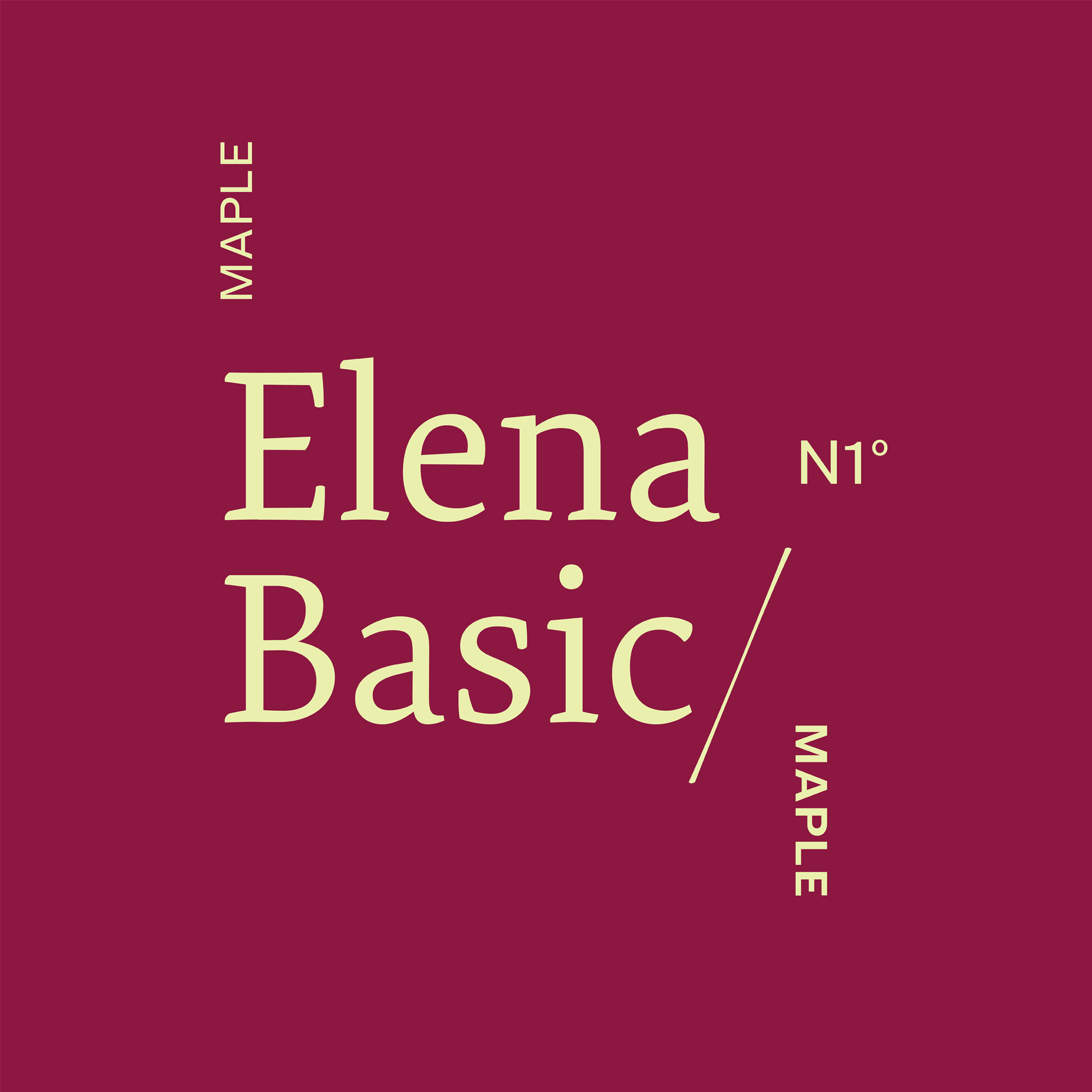
Elena is a lovely font designed specifically for digital text. A clear, crisp and modern-looking serif, it was designed by Nicole Dotin and released through Process Type Foundry in 2011.
Another dependable and hard-working typeface, Maple is a sans-serif grotesque with exaggerated lowercase incisions, irregular stroke terminations, and an overflowing black weight. Designed by Eric Olson of Process Type Foundry, this flamboyant and versatile font is brimming with personality.
The fun and flighty Maple is a great foil for the more functional and geometric Elena, and this pairing would be a great choice for any desktop or mobile app.
2. ARS Maquette and Copernicus Book
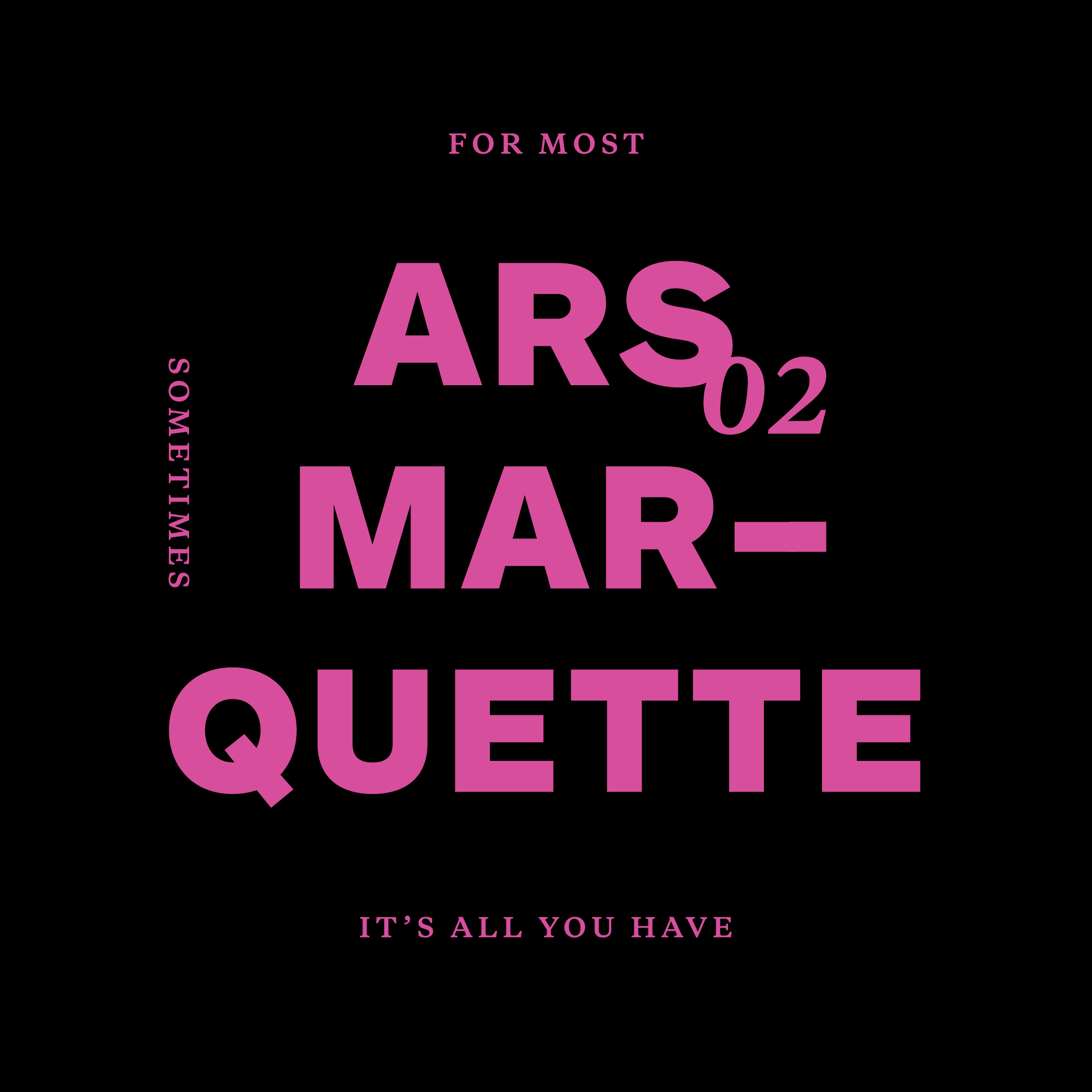
ARS Maquette is a sans-serif that offers a clean and stylish simplicity. Designed by Angus R. Shamal and released through ARS Type in 2001, its pleasing geometrics are both super-friendly and supremely readable.
Copernicus Book is a much more traditional serif that exudes authority and a sense of formality, yet still with friendly and approachable letter-shapes. Designed by Village Type & Design in 2009, it’s a good option for body copy.
You won’t be surprised that we recommend this font combination for websites that feature a lot of textual information. After all, we’re using it right here on this very site!
3. SuisseWorks and Aperçu
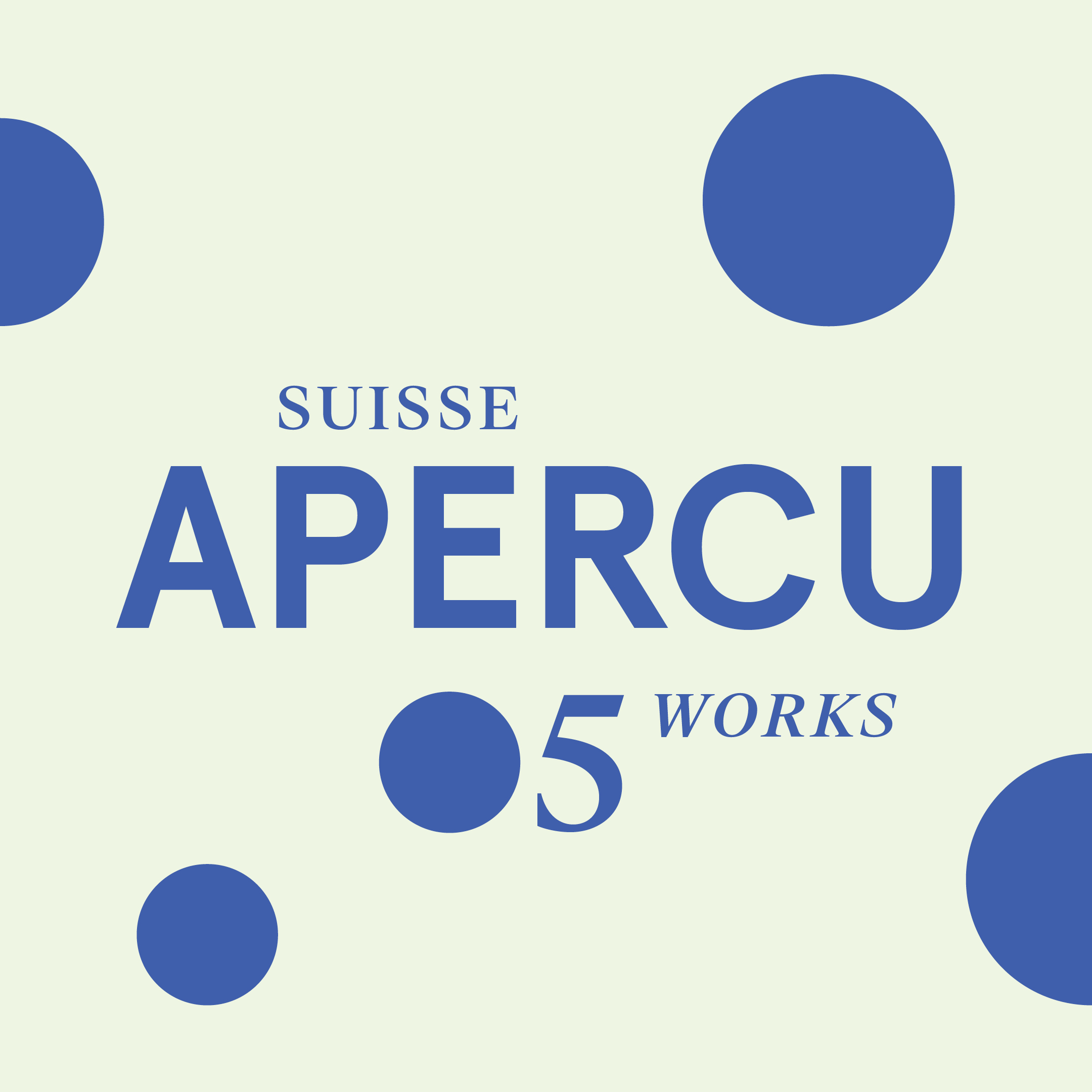
Suisse Works is a traditional serif that’s somewhat reminiscent of Times New Roman. Designed by Ian Parry of Swiss Typefaces in 2011, it’s a great way to give a sense of legibility and formality to your designs while exuding a lot more personality than, say, the overused Helvetica.
Released by Colophon in 2010, the original concept behind Aperçu was to create a synopsis or amalgamation of classic realist typefaces: Johnston, Gill Sans, Neuzeit, and Franklin Gothic. The resulting grotesque sans-serif provides real dramatic impact and is most famously in use by MOMA, De Wiels, Zeit Magazine and the Walker Art Centre.
Both fonts, in short, combine a good level of readability with a sense of individuality, but both from very different perspectives. They make an ideal combination, then, for any design that seeks to use typography to grab visual attention and engagement from the viewer.
4. Tiempos Headline and Visuelt
Tiempos Headline is a modern serif for display typography. Launched in 2012 by Klim Type Foundry, it was created for a Spanish newspaper, and inspired by Times New Roman. Specifically designed to fit more words into a column without sacrificing legibility, this font represents a great choice for both running copy and headlines.
Created as a bespoke typeface for the National Norwegian Design Awards, Visuelt was spawned from a more considered and constrained version of Apercu (see above). Released in 2014 by Colophon Foundry, this sans-serif has a distinctive tone of voice and is particularly striking when used in headlines.
These two fonts are both brilliantly individual, and beautifully functional, and could make an unusual but effective combination by a designer seeking to add a touch of originality to editorial design.
5. Spectral and Basis Grotesque
Spectral is a versatile serif font intended primarily for text-rich, screen-first environments and long-form reading. Created by Production Type and commissioned by Google Fonts, Spectral also has the benefit of being free to use, in both personal and commercial projects.
Basis Grotesque was created by Anthony Sheret and Edd Harrington as the bespoke typeface for a photography magazine. Launched by Colophon Foundry in 2015, this sans-serif font is bold and confident in its stark, skeletal simplicity.
If you’re seeking a sense of cool, minimalist modernism in your designs, then, these super-sleek fonts could prove a killer combination.
6. Poppins and Minion
Poppins is a geometric sans-serif with 18 styles, created by the Indian Type Foundry in 2019. With a more international and contemporary take on the traditional genre, the family also supports both Devanagari and Latin writing systems, making it a flexible choice.